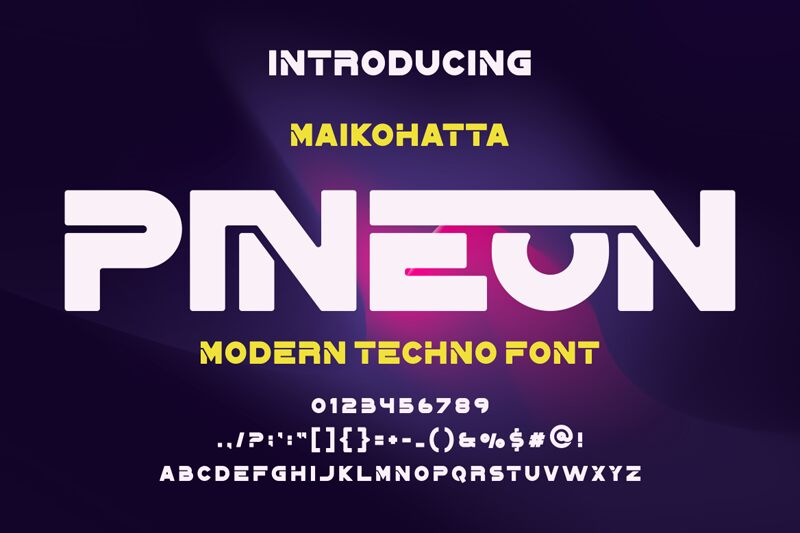
Pineon, a captivating display font crafted by the talented duo Gilang Ternadho and Maiko Hatta, exudes a bold, futuristic allure. With its expanded, chunky letterforms and sharp, angular edges, this typeface radiates a sense of strength and technological sophistication. The Pineon font's striking visual presence commands attention, making it an ideal choice for branding, editorial, and digital design projects that seek to convey a sense of modernity and innovation.
Pineon's versatility extends beyond its aesthetic appeal. Its expanded width and bold weight lend themselves well to headline compositions, inviting the viewer to engage with the content. Additionally, the font's clean, geometric shapes harmonize seamlessly with minimalist design approaches, allowing it to seamlessly integrate into a wide range of visual identities and creative expressions.